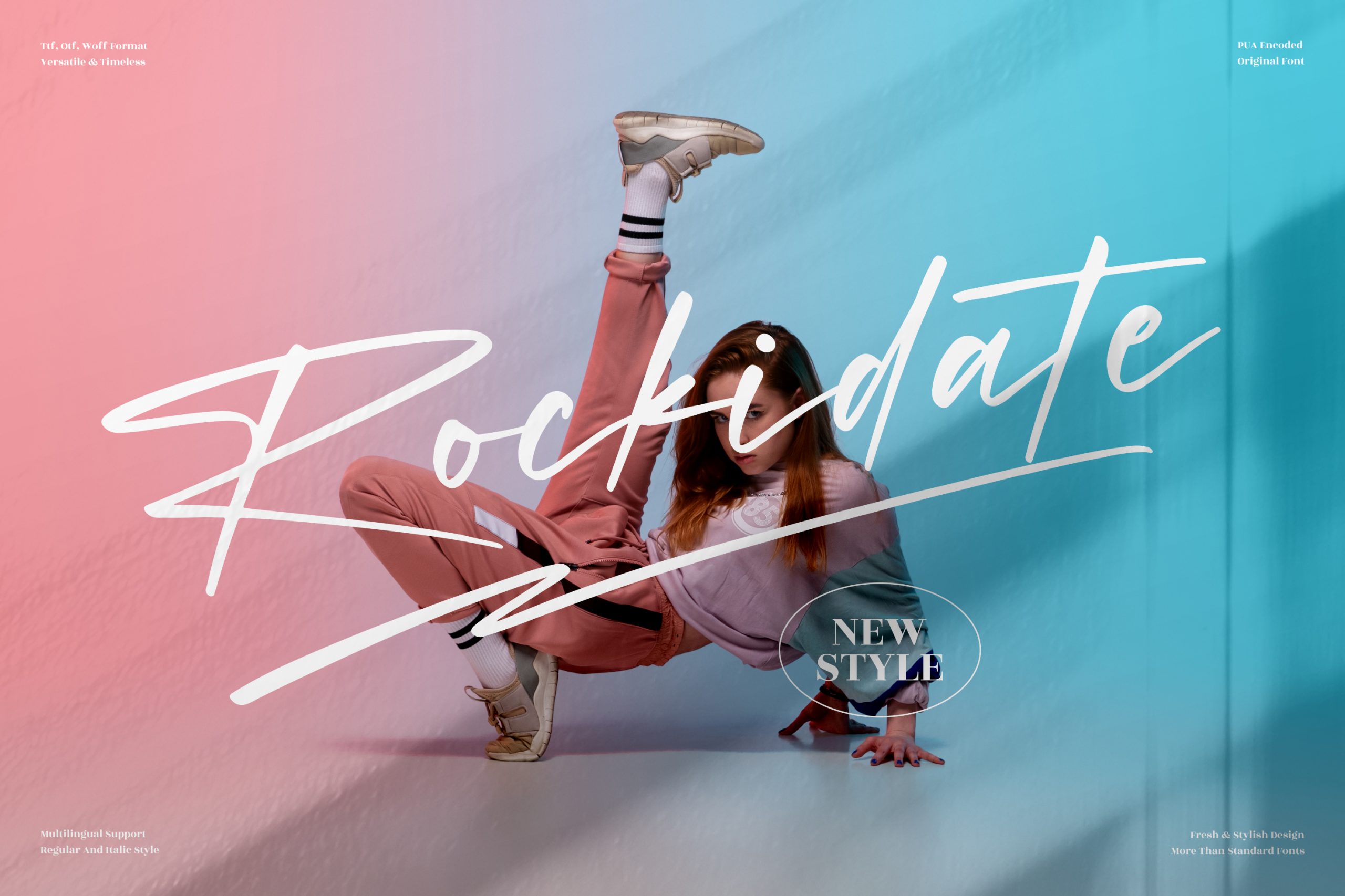
Alphabet Script Handwritten Font
Alphabet Script Handwritten Font – special creative products for you, our products will give you an extraordinary experience. The latest style letters are perfect for wall displays, wedding invitations, social media post logos, advertisements, product packaging, product designs, labels, photography, watermarks, invitations, stationery, and any project that requires taste handwriting.